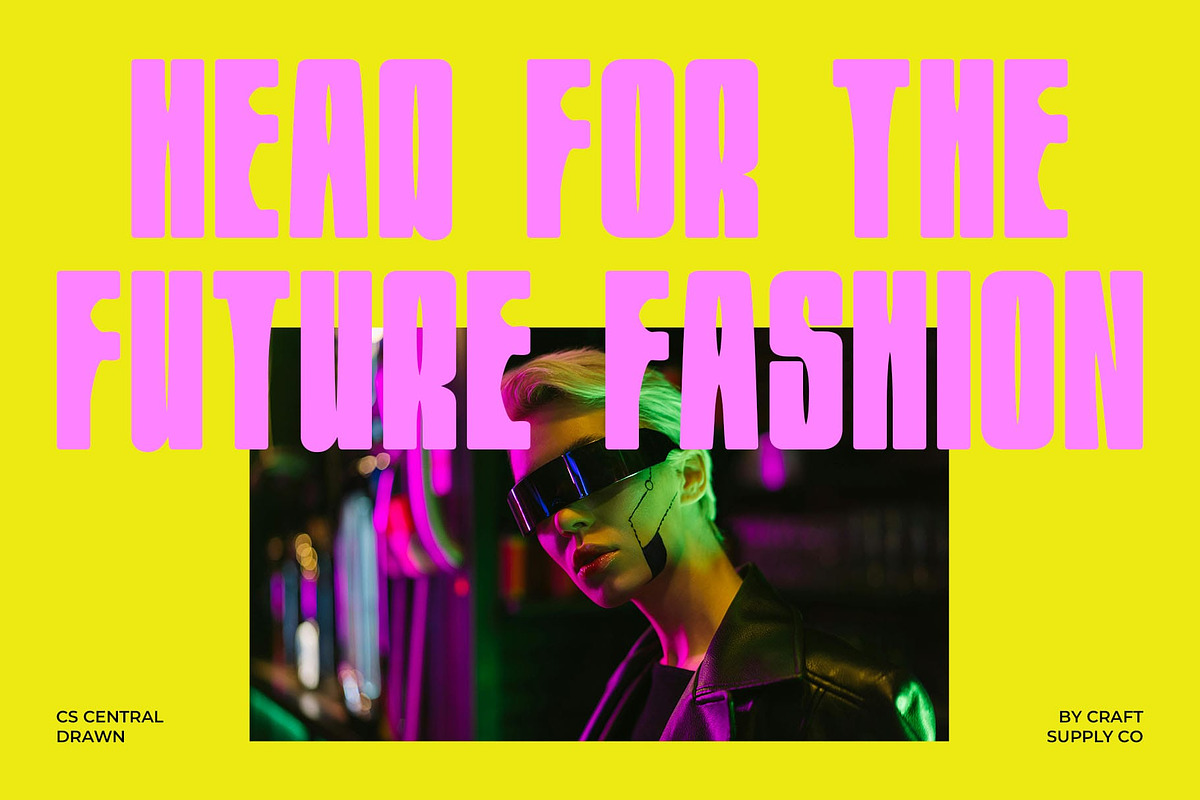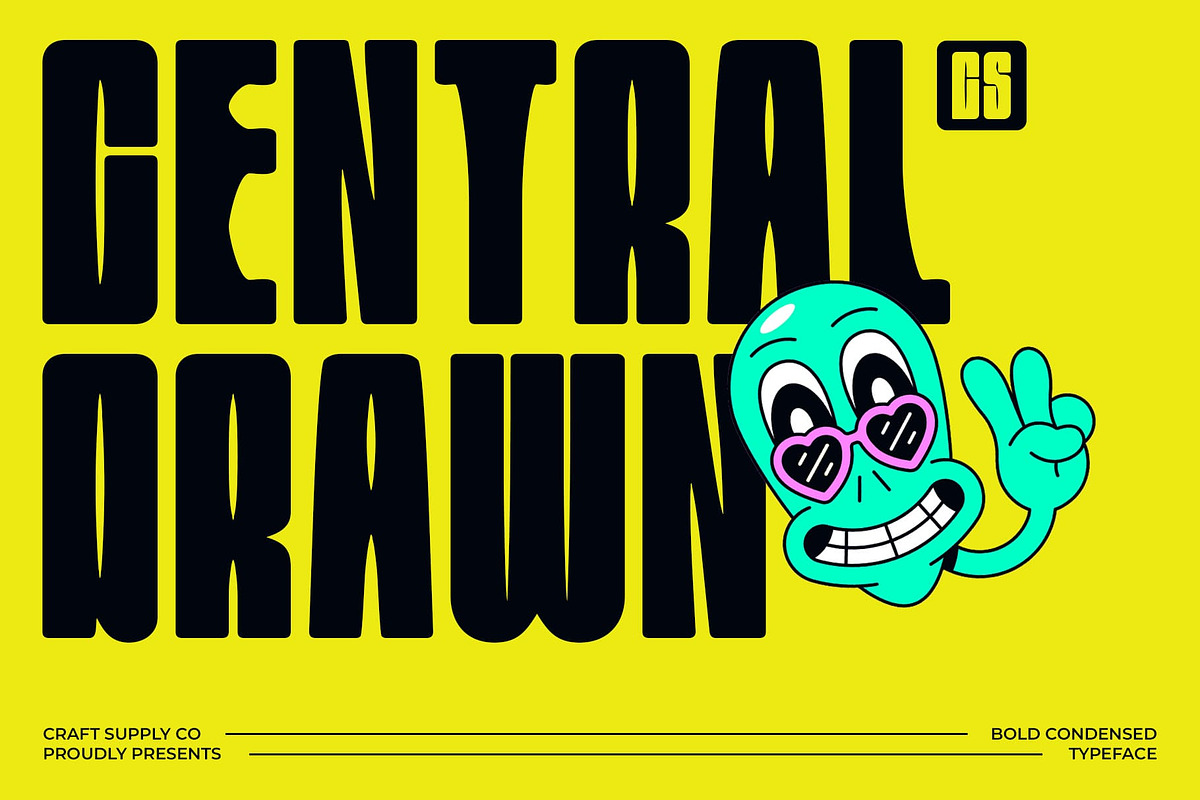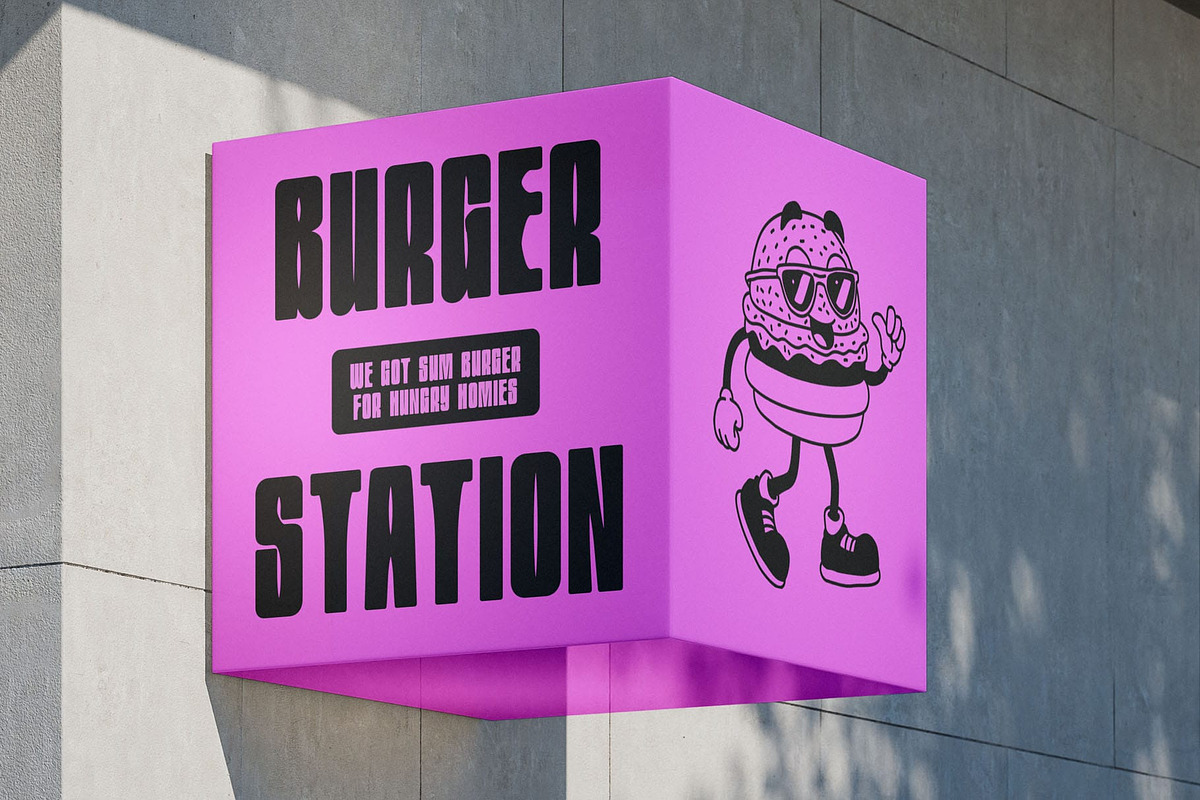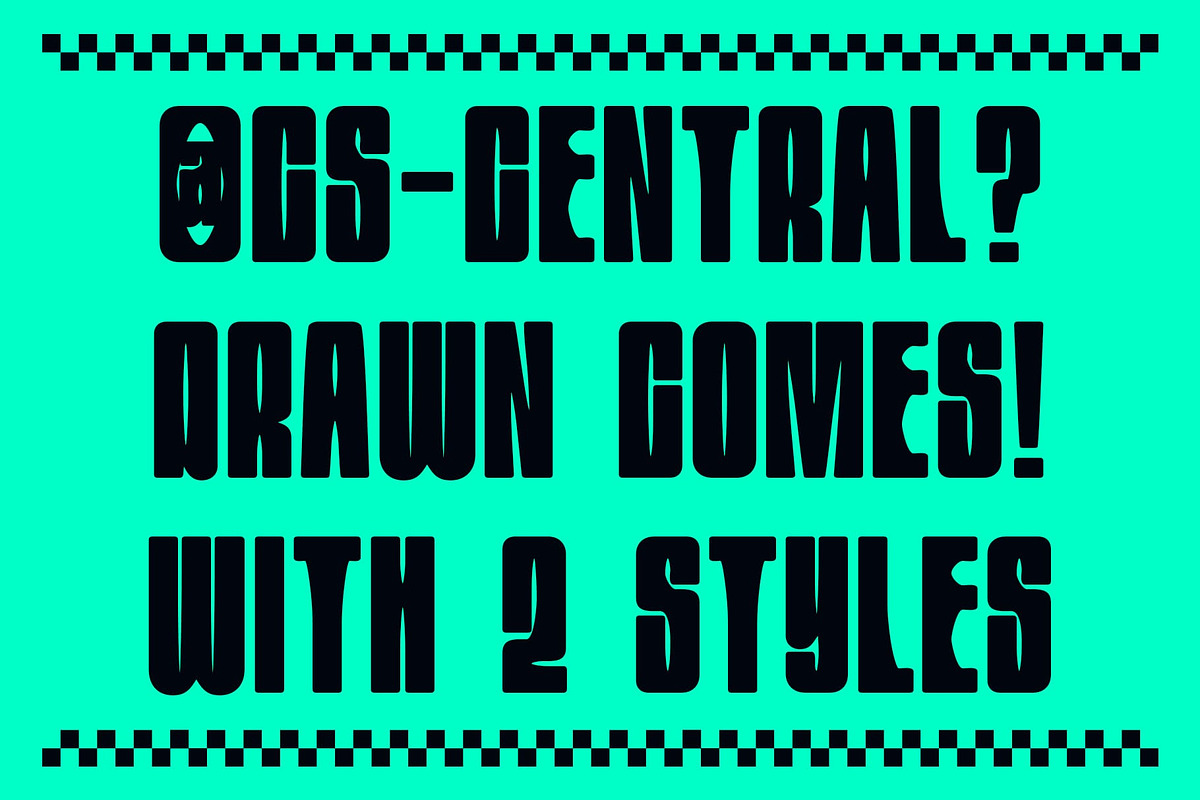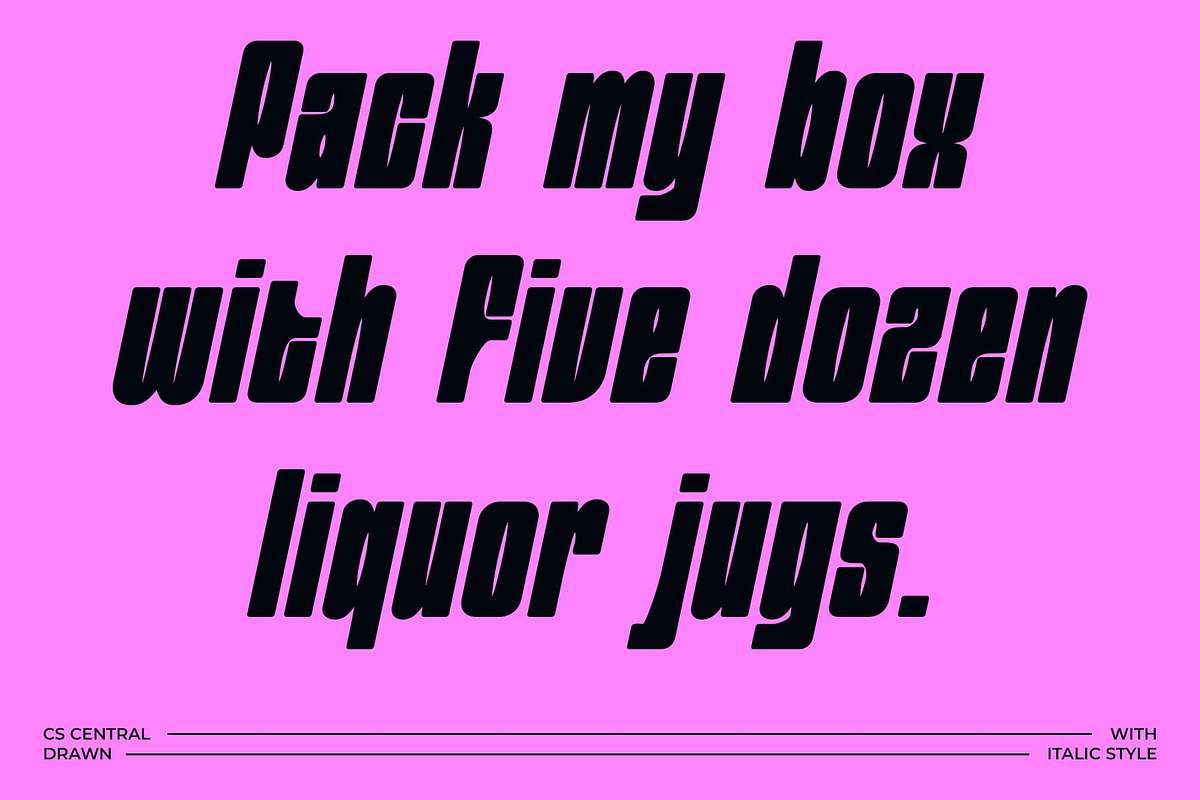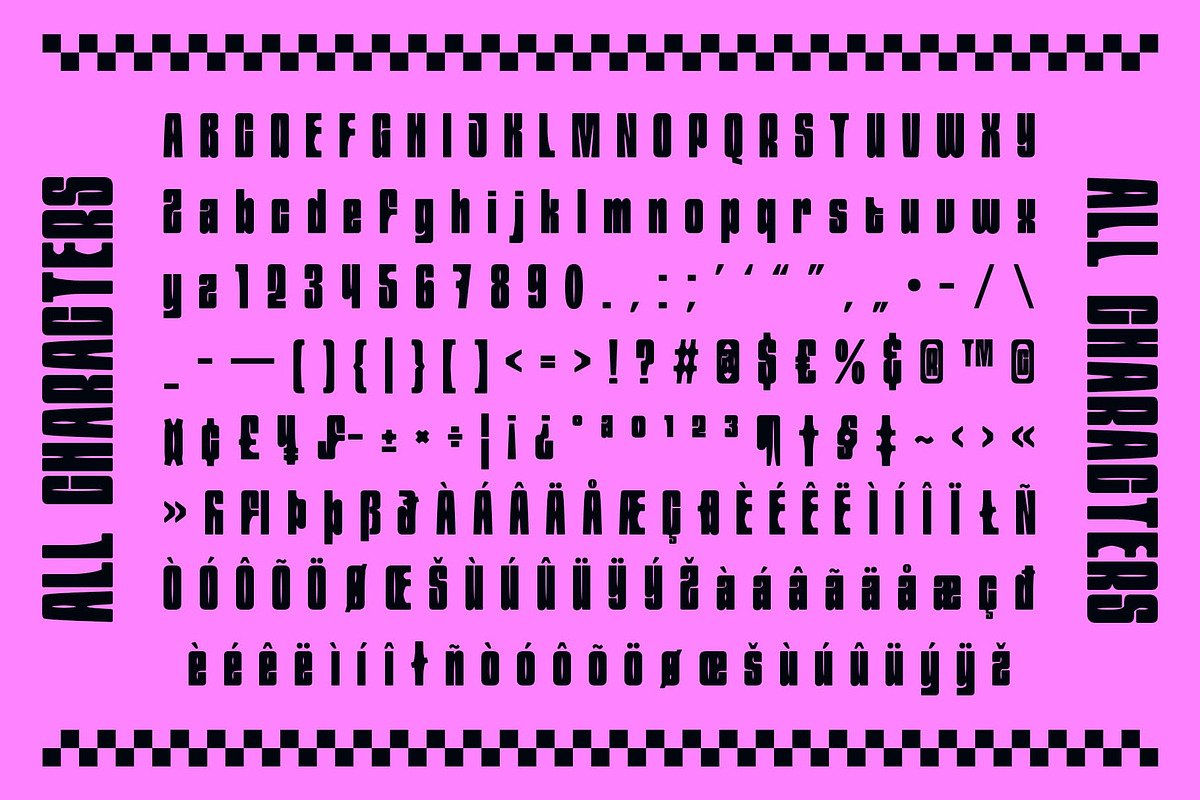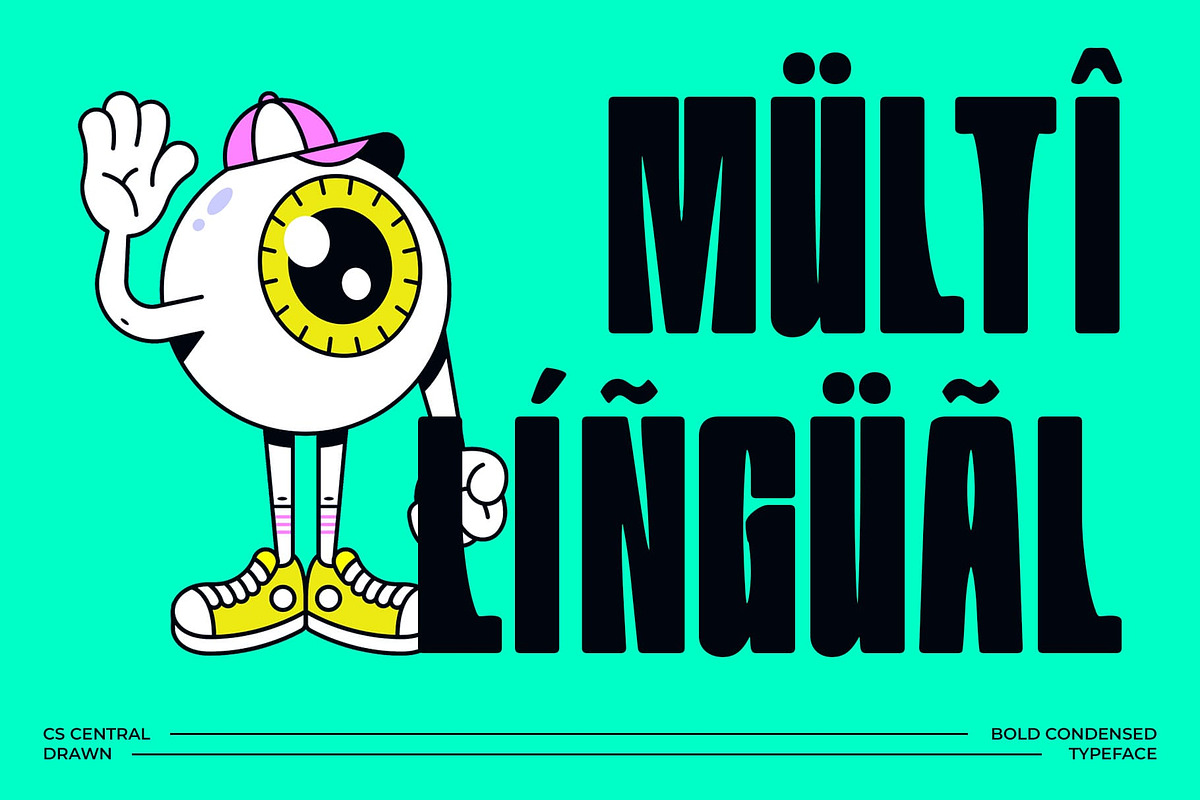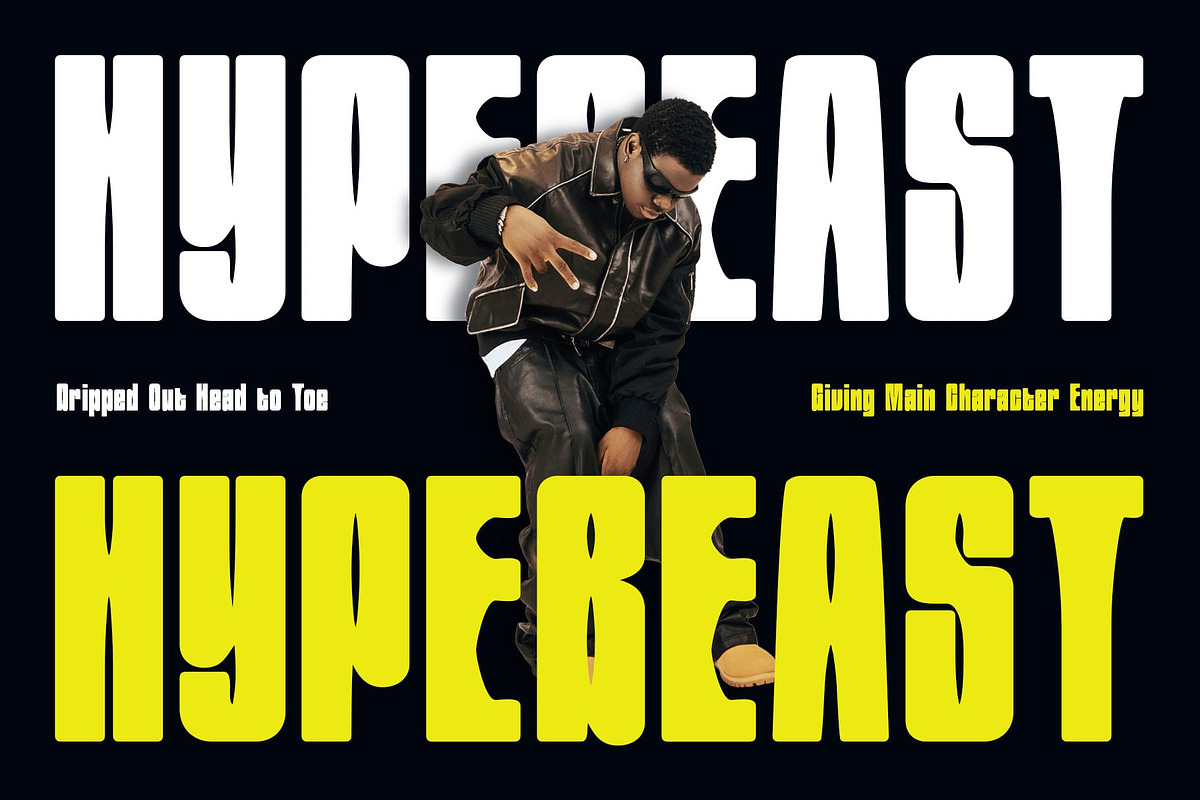
CS Central Drawn
CS Central Drawn – Rugged Boldness with a Handcrafted Edge
Bold Condensed Sans Serif with Drawn Texture CS Central Drawn is a modern sans serif font featuring a bold and condensed form designed for maximum visual impact and space efficiency. Each letter is built with a confident and solid structure, ensuring clarity and presence in every use.
Condensed Shape for Efficient and Eye-Catching Design The condensed proportions make this contemporary font ideal for designs that demand compact yet powerful typography. Whether used in bold headlines, title treatments, or tight layouts, its space-saving form ensures messages are delivered effectively without sacrificing personality or style.
Drawn Effect Adds Handmade Character The sketch-like texture brings a handcrafted, imperfect aesthetic that softens its otherwise industrial structure. This combination of raw texture and clean geometry creates a unique tension—perfect for designs that want to feel both modern and authentically crafted. It adds personality and depth, making each letter feel more tactile and expressive.
Versatile for Bold Branding and Creative Layouts This font has an expressive, hand-drawn style that is well-suited for a wide range of visual applications, from creative branding and posters to editorial layouts and album artwork. It’s the perfect typeface for projects that aim to be bold, original, and full of texture. With its rugged charm and professional design, this font bridges the gap between modern efficiency and artisanal flair.
- CS Central Drawn Regular
- CS Central Drawn Italic